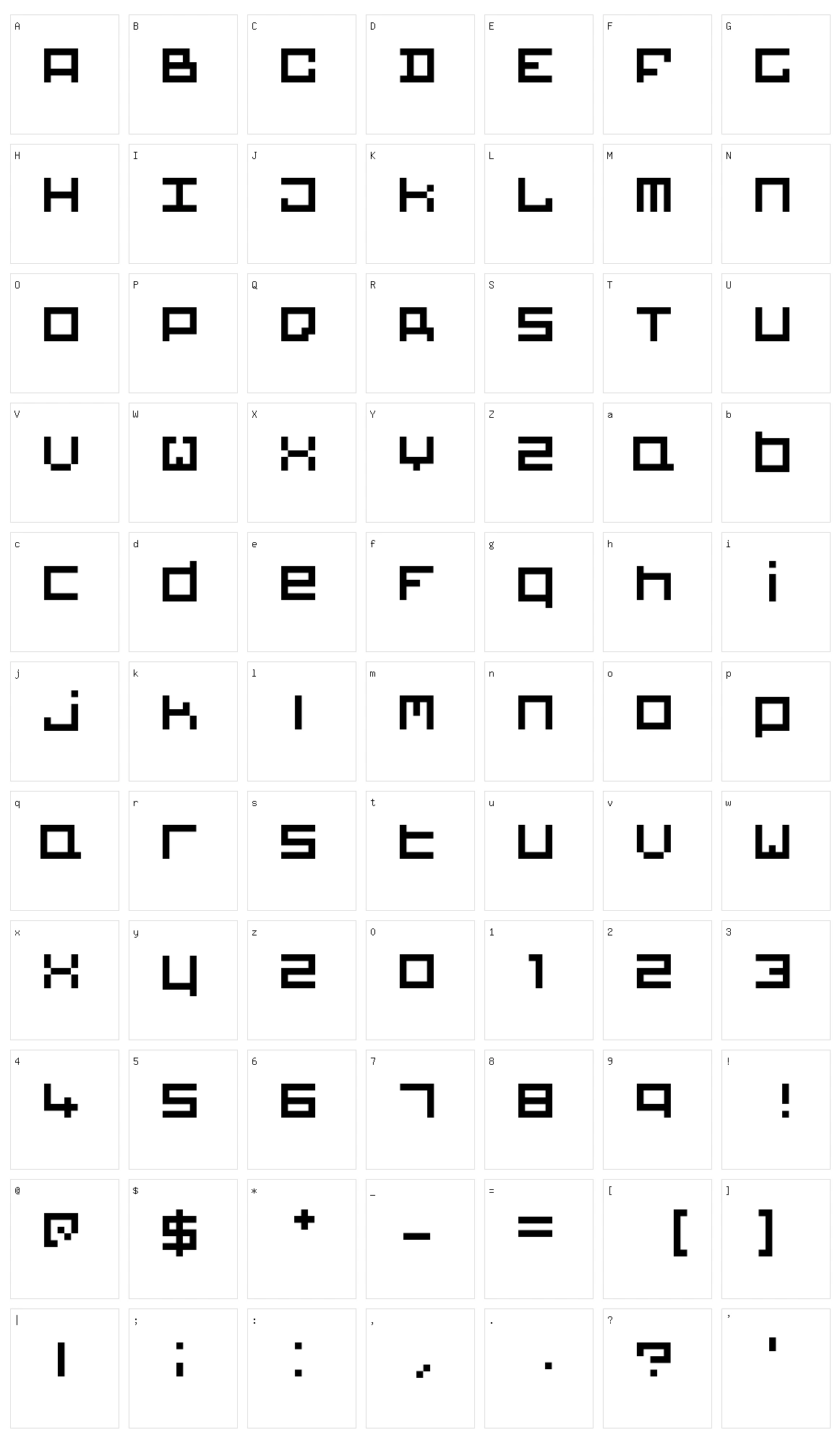
The free font Big Blocks is carefully designed by Chris Coombes, showcasing a thoughtful balance of creativity and usability and falls under the Square font style. When you download the ZIP file, it contains only 2.61 KB of font files, making it lightweight and quick to download. Please review the license details below to understand permitted usage and distribution rights. If license information is not available, we recommend using this font for personal projects only or contacting the author directly for commercial usage permissions.